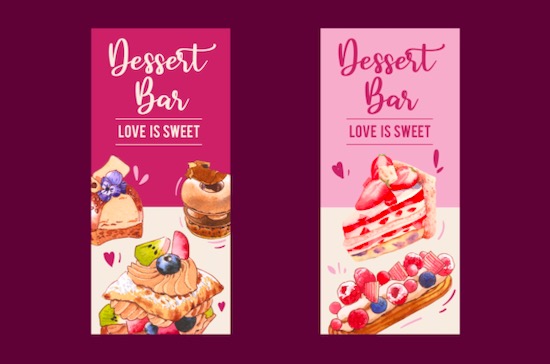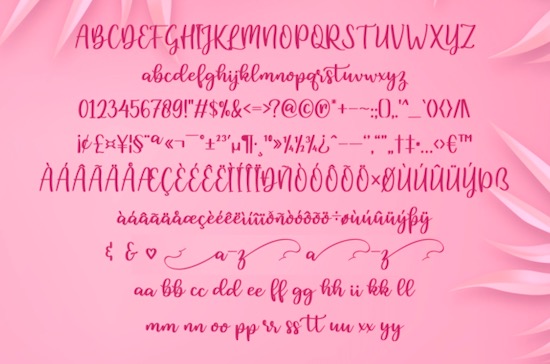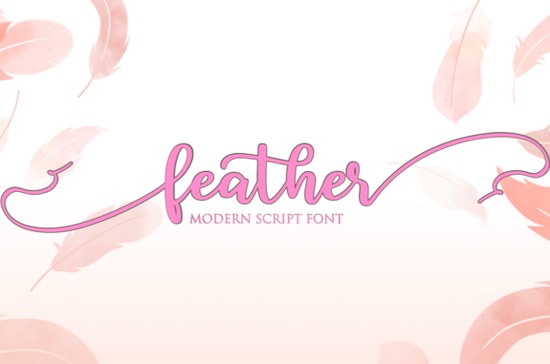
Feather is a sweet and elegant script font that was designed and published by NJStudio. It features beautiful ligatures along with varied baselines, beautiful glyphs, and smooth lines.
Feather Calligraphy Script Font
Name: Feather
Designed, Published by: NJStudio
Font Categories: Handwritten, Calligraphy, Script